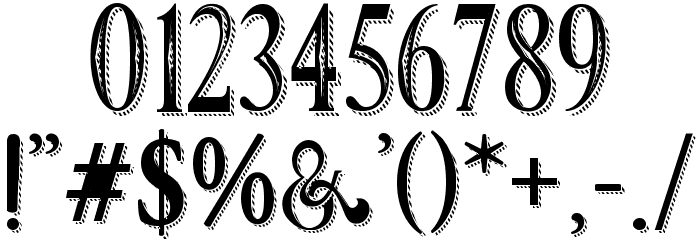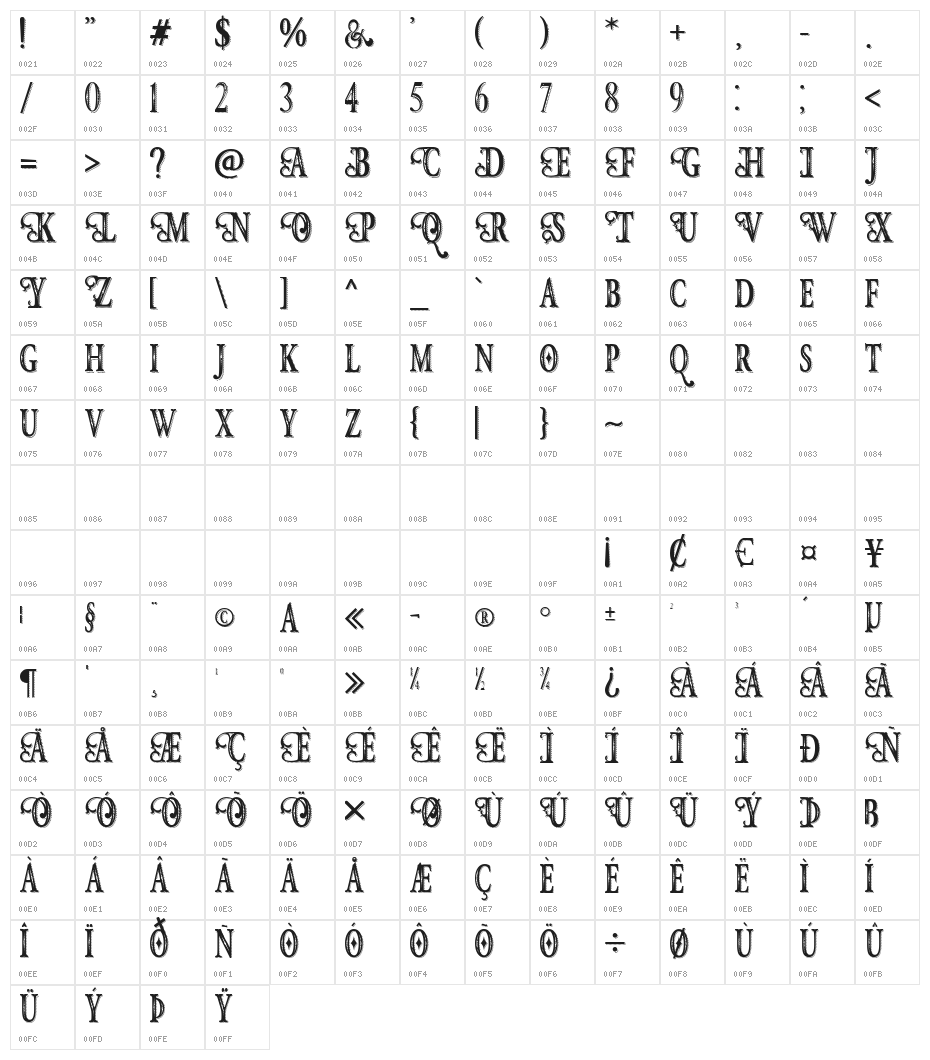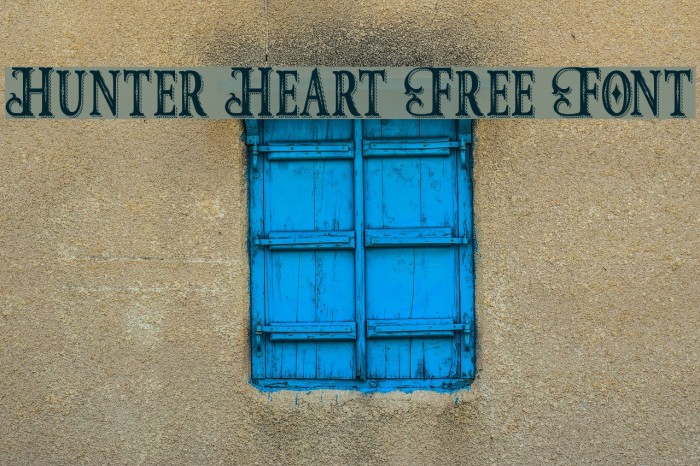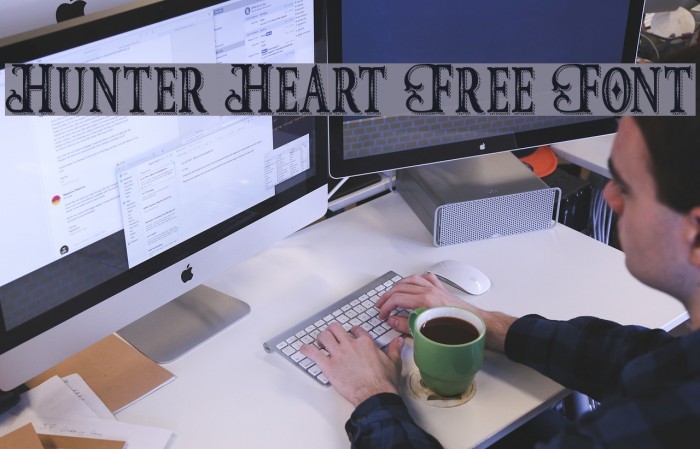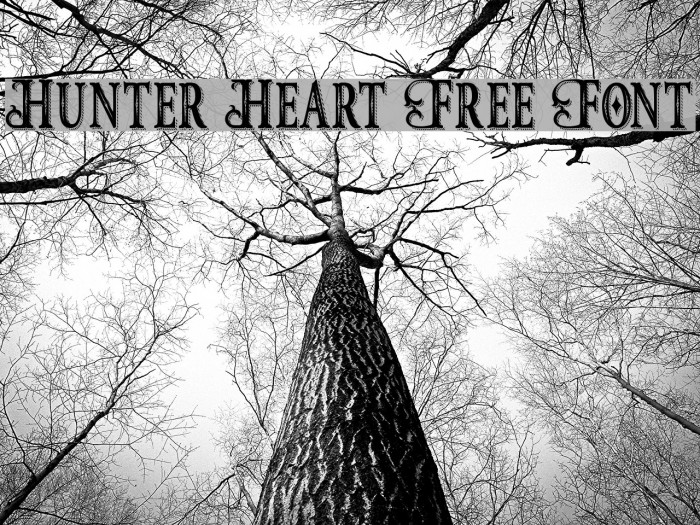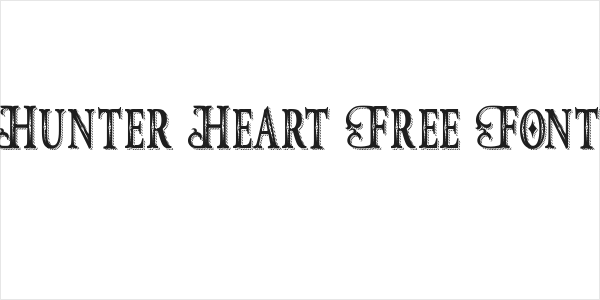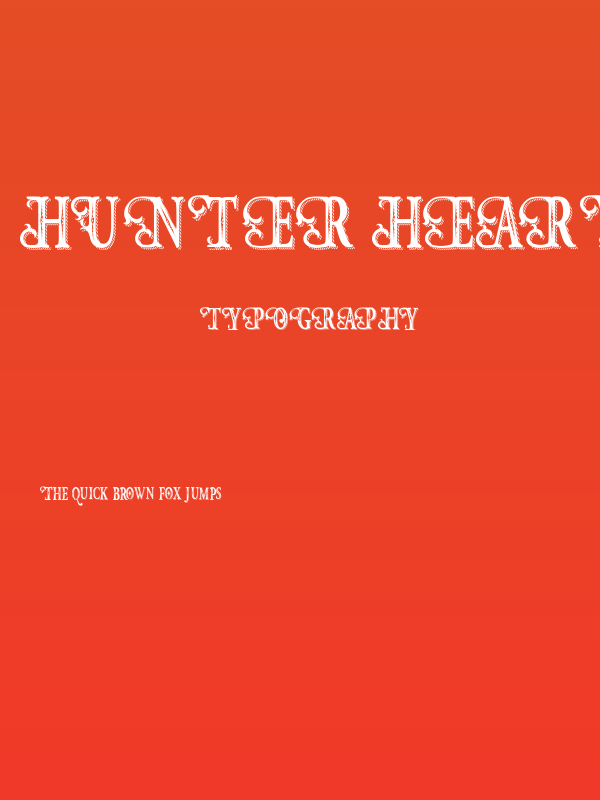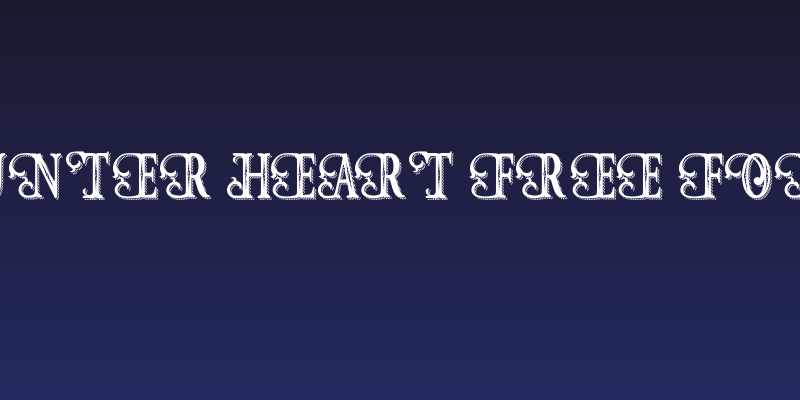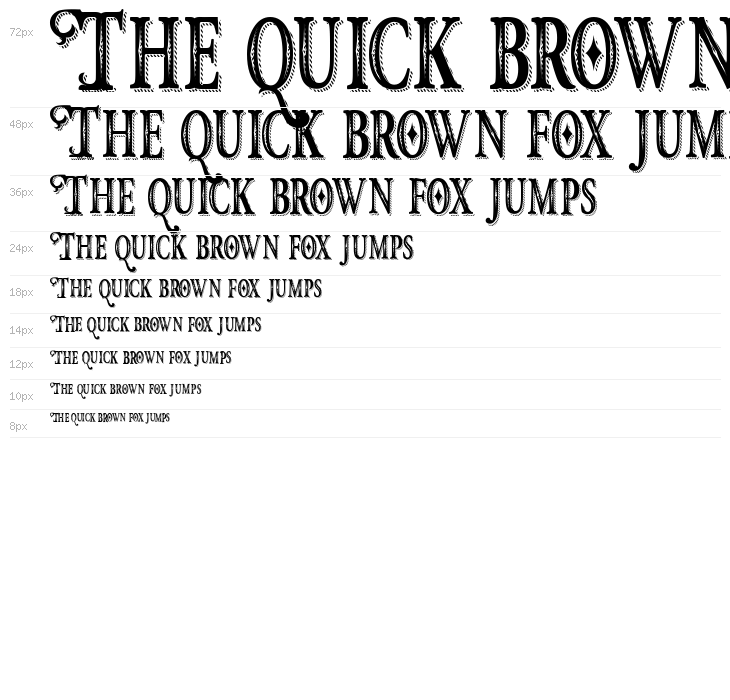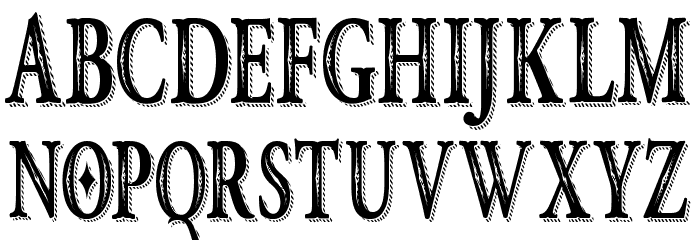
Hunter Heart Free Font Font
Hunter Heart Free Font Description
This font features a bold and decorative style with intricate detailing that gives it a vintage and ornate appearance. The uppercase letters have a unique flair with embellishments that add a sense of elegance and sophistication. The lowercase letters maintain a consistent style, complementing the uppercase with a slightly more subdued design. The numerals are distinct and easily readable, while the special characters carry the same decorative elements, making them stand out. This font's overall design is reminiscent of classic signage or poster fonts, with a touch of modern flair due to its boldness and intricate patterns.
| Proposed Projects | Ideal for vintage-themed posters, signage, branding projects, and decorative invitations. |